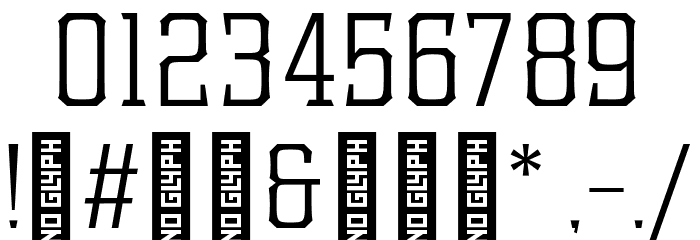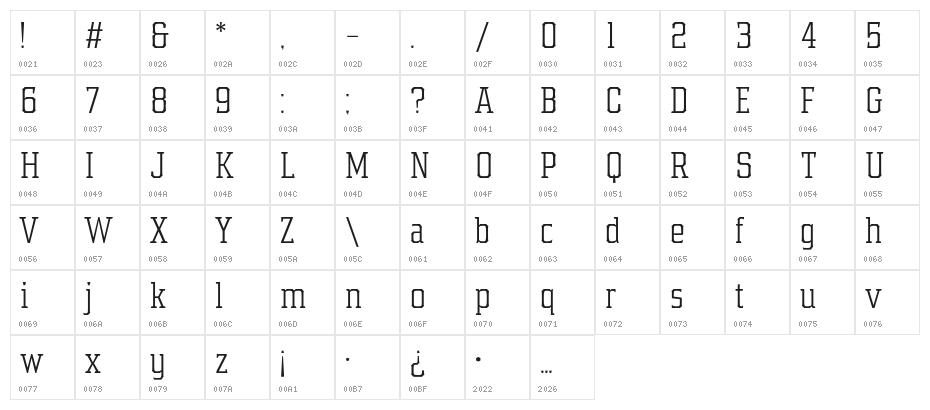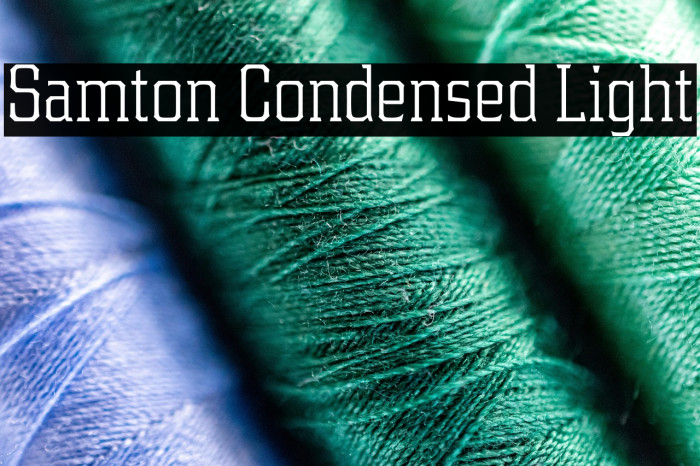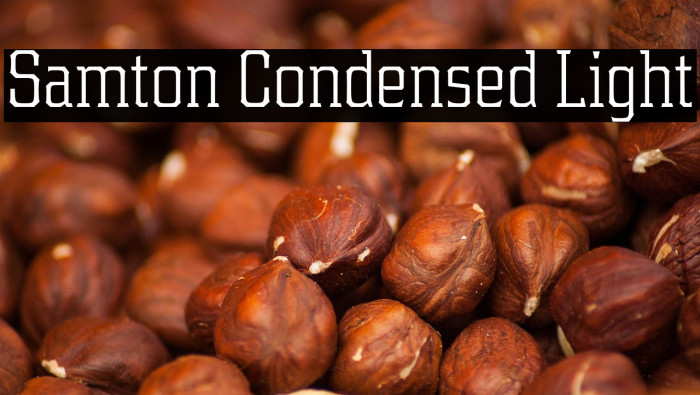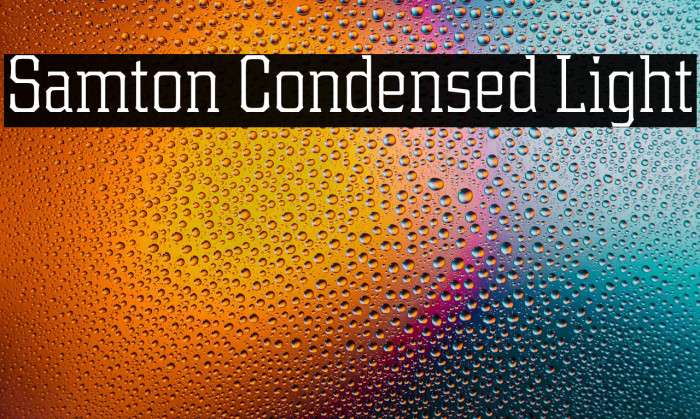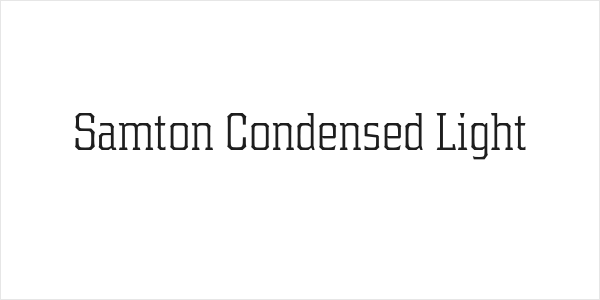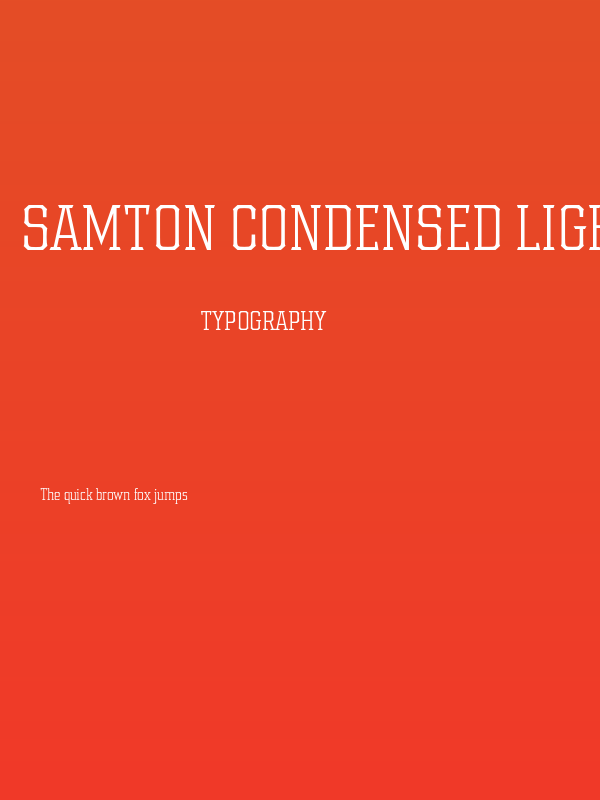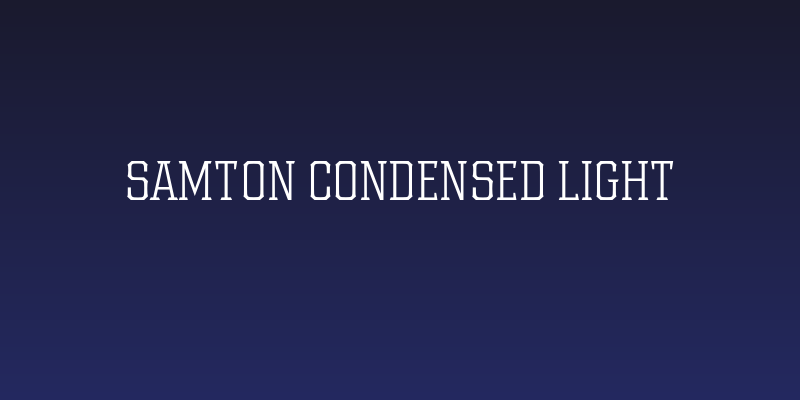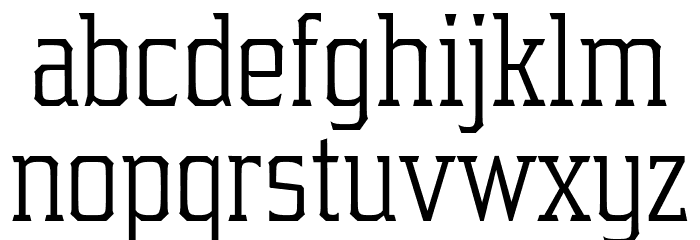
Samton Condensed Light Font
Samton Condensed Light Description
This font features a condensed and light design, characterized by its tall and narrow letterforms. The strokes are consistent in width, giving it a uniform appearance. The uppercase letters are slightly taller than the lowercase, maintaining a clean and structured look. The numerals are aligned with the uppercase letters, ensuring readability and balance. The special characters are distinct and match the overall aesthetic, making it versatile for various applications. The font's geometric structure and minimalistic style contribute to its modern appeal.
| Use Case | Headlines, Logos, Digital Interfaces |
| Proposed Projects | Ideal for use in modern branding, editorial design, and digital interfaces where space is limited. |